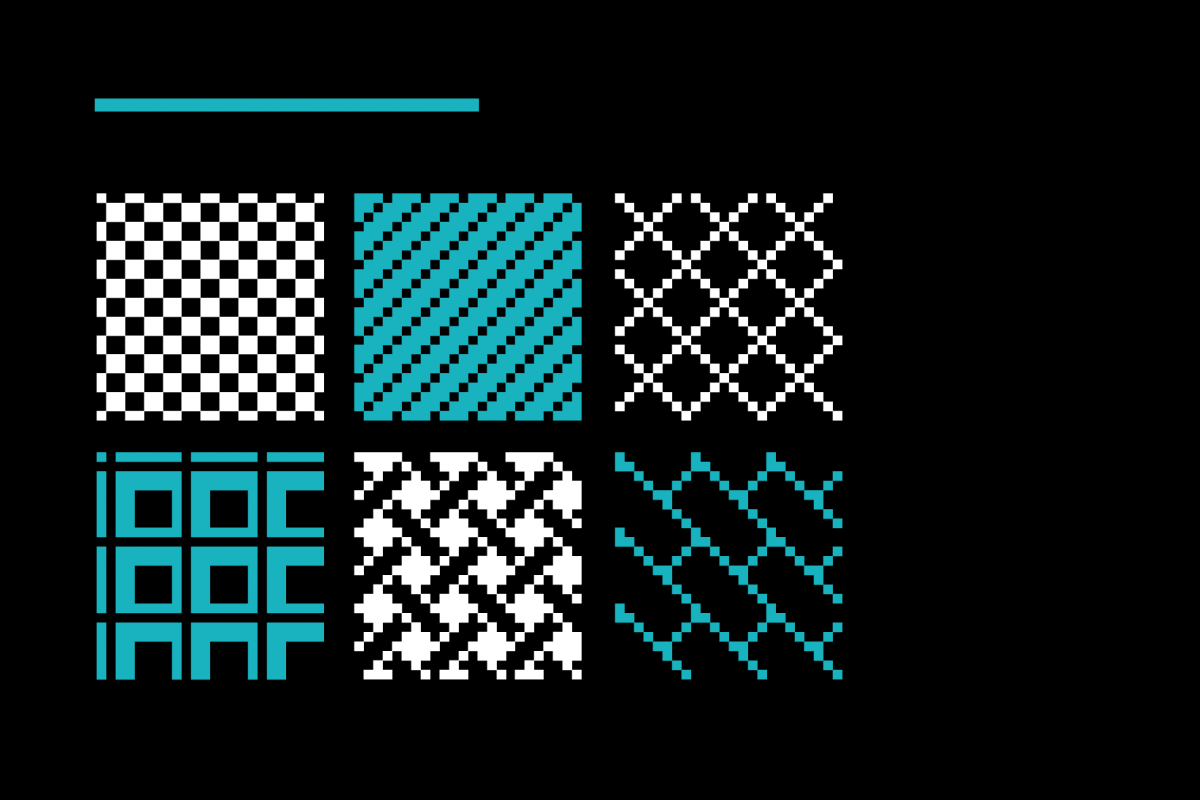
SB Pixelpaint - Pixel Patterns
• Contains glyphs designed to be used as tile patterns.
• Also contains various dingbats, bulletpoints and arrows.
• Optimised for use as a pixel font at 10px and multiples of 10px.
SB Pixelpaint is the result of delving back into the early pre-history of computer-aided graphic design, a time of bitmap graphics, floppy disks and black and white monitors. SB Pixelpaint is a collection of pixellated dingbats, arrows and tile glyphs designed to be used as repeating pattern fills, taking inspiration from the earliest computer paint programs, such as MacPaint and MS Paint.
These programs let users to select an area of the artwork to fill with a pre-defined pattern fill, and these programs often offered a range of patterns for the user to choose from: checkerboard, stripes, a tiled roof or even a brick wall effect perhaps? SB Pixelpaint includes some of these pixelated tiles so you can experience the joy of using these early paint programs, but with the added bonus of being able to overlay and combine them using colour and transparency. Many of the glyphs in this font are designed to be used as pattern fills by repeating the same character, but you can create any combination you like.
SB Pixelpaint is optimised for use at 10px. You will also need to set the leading to 10px and make sure the tracking is set to zero. This font also features a range of pixel-friendly dingbats and arrows, so it is recommended to use your application’s glyph picker to view the full range of tiles and symbols.